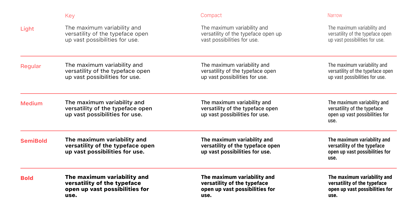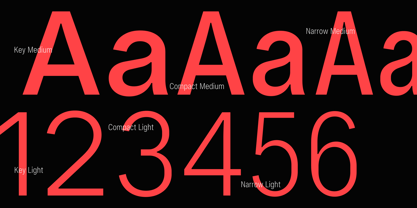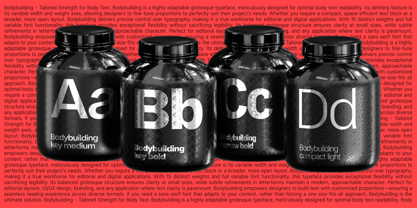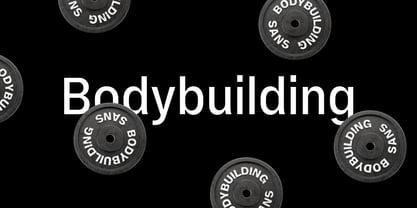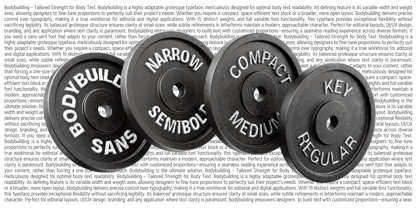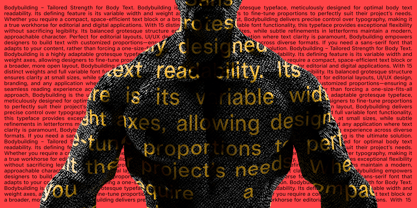
Bodybuilding
by Typetika
The Bodybuilding Font Family was designed by Maksym Kobuzan and published by Typetika. Bodybuilding contains 16 styles and family package options.
Bodybuilding – Tailored Strength for Body Text
Bodybuilding is a highly adaptable grotesque typeface, meticulously designed for optimal body text readability. Its defining feature is its variable width and weight axes, allowing designers to fine-tune proportions to perfectly suit their project’s needs. Whether you require a compact, space-efficient text block or a broader, more open layout, Bodybuilding delivers precise control over typography, making it a true workhorse for editorial and digital applications.
With 15 distinct weights and full variable font functionality, this typeface provides exceptional flexibility without sacrificing legibility. Its balanced grotesque structure ensures clarity at small sizes, while subtle refinements in letterforms maintain a modern, approachable character.
Perfect for editorial layouts, UI/UX design, branding, and any application where text clarity is paramount, Bodybuilding empowers designers to build text with customized proportions—ensuring a seamless reading experience across diverse formats.
If you need a sans-serif font that adapts to your content, rather than forcing a one-size-fits-all approach, Bodybuilding is the ultimate solution.